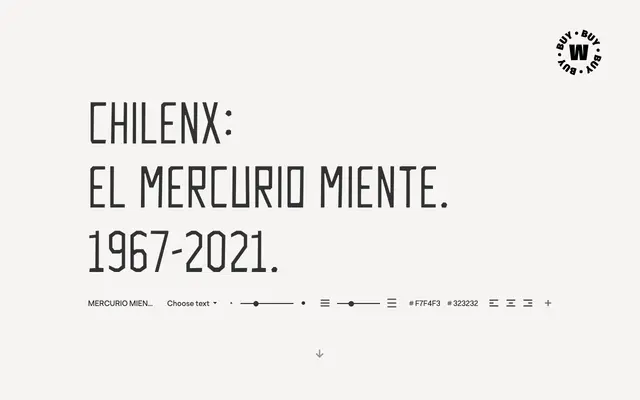
Mercurio Miente
A single-style display typeface by three Chilean designers, conceived as a political tool referencing the 1967 anti-El Mercurio protest slogan.
Designed by Patricio Truenos, David Súid and Alfredo Da Venezia, this typeface takes its name and purpose from a Chilean protest phrase first used in 1967 to challenge right-wing media. Released as a free personal-use download, it functions as much as a piece of political commentary as a typographic artefact. The single style suits headline and poster work where expressive weight and historical resonance matter more than versatility.
Designed explicitly as a political protest typeface referencing Chilean media activism, placing it firmly in the display category with a strong expressive and vernacular character rather than any conventional text classification.